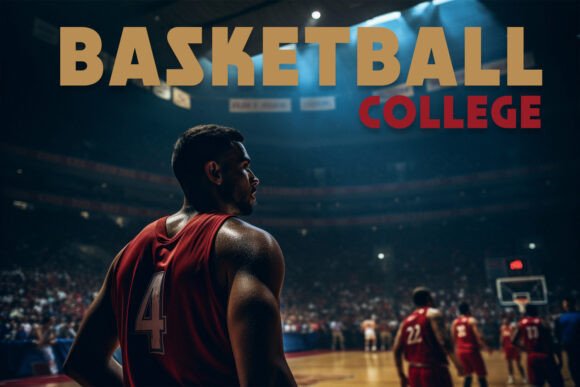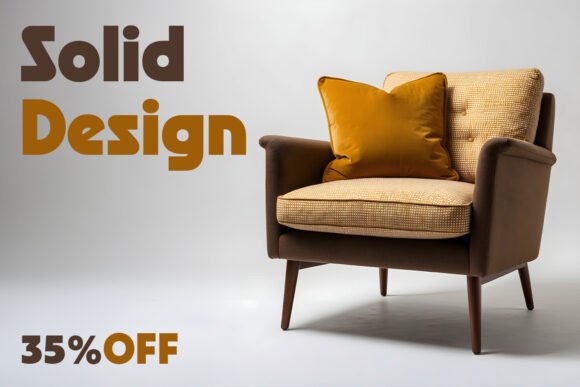
Introduction to Mixim Font
The moment of truth arrives when you’re working on a creative project, and you need a font that truly makes an impact. You’ve got your message, your vision, but something’s missing – a font that can deliver the raw power and unapologetic attitude your design demands. That’s where the Mixim Font comes in, a heavyweight geometric display font engineered to leave a lasting impression.
Whether you’re a seasoned designer or just starting out, the Mixim Font is a valuable resource in your design arsenal. Its high-quality design, striking brutalist aesthetic, and transparent background make it perfect for giant headlines, industrial branding, sports graphics, gaming logos, and bold editorial layouts. With the Mixim Font, you can be sure your message stands out with absolute strength and clarity, making it an essential download for any creative project.
- Includes a range of styles and weights, making it an ideal choice for designers working on various creative projects.
- Designed to be highly legible at different resolutions, including 72 dpi and 300 dpi, ensuring optimal display on various screens and devices.
Honest Review: Mixim Font
I recently had the chance to work with the Mixim Font, and I must say it’s been a great addition to my design resource library. With its sleek and modern design, it’s perfect for any creative project that requires a high-quality font.
- High-quality design: The Mixim Font has a professional and sleek look that’s perfect for any design project.
- Transparent background: This feature is super useful for designers who need to work with transparent backgrounds, making it easy to incorporate the font into any design.
- Limited character set: I found that the font only includes a limited character set, which can be a limitation for designers who need to use non-standard characters.
- No bold or italic styles: While the font looks great in its standard form, it would be nice to have bold and italic styles available for added flexibility.
Overall, I’m impressed with the Mixim Font, and I’d definitely recommend it to designers looking for a high-quality font for their creative projects. While it has some limitations, its sleek design and free download make it a valuable resource in my design library.
Mixim Font is a high-quality, free download design resource ideal for any creative project. Its transparent background makes it versatile and easy to use in various applications.
Mixim Font is suitable for various creative projects, including logos, brochures, business cards, and presentations.
To get the most out of Mixim Font, experiment with different font sizes and styles, and pair it with other design elements to create a visually appealing design.